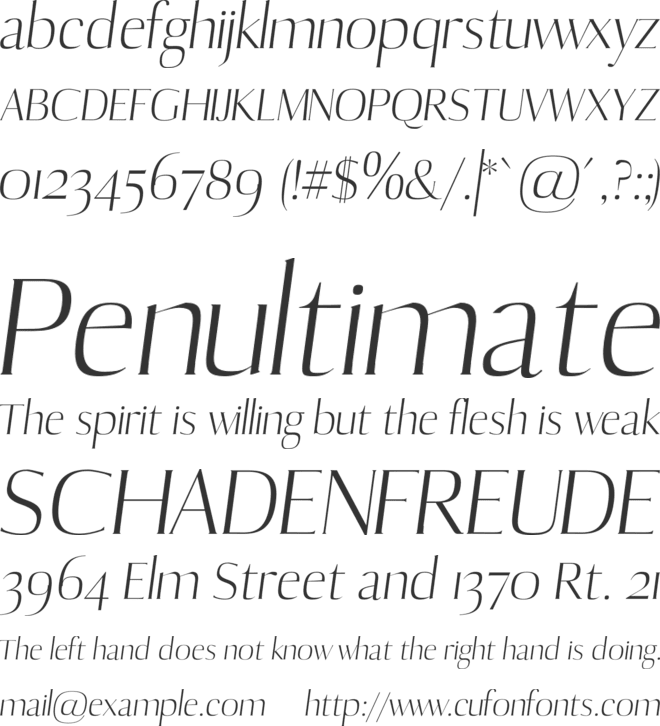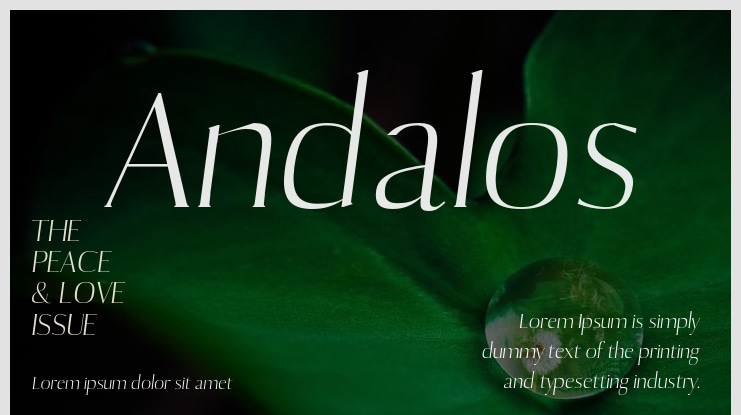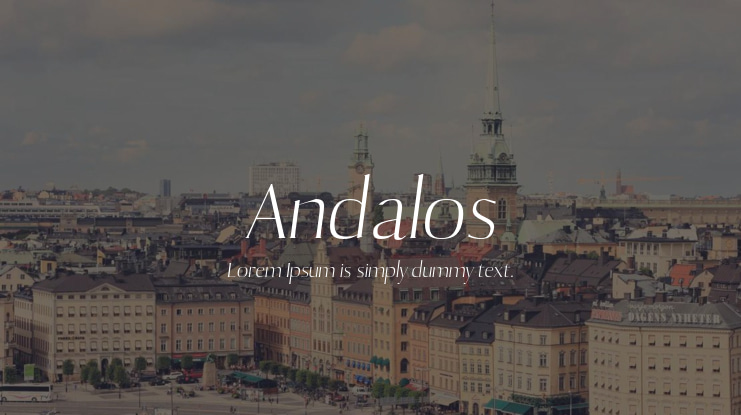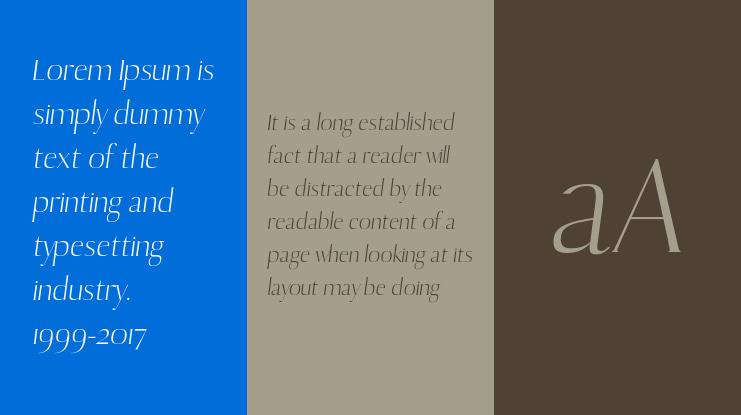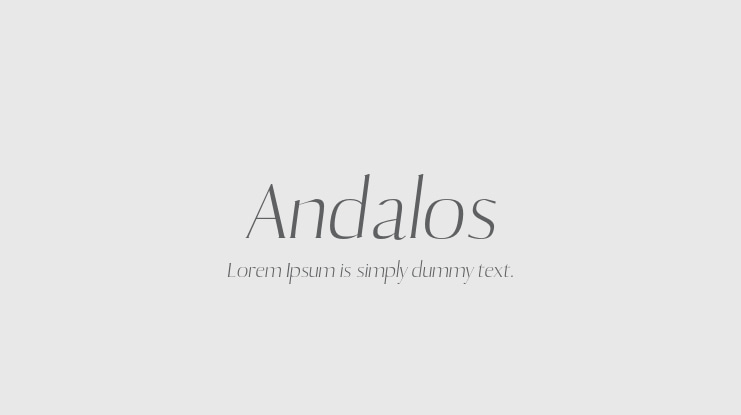
Andalos Font
It’s a wonderful font with a unique, detailed, and handcrafted look.
These fonts look amazing in all caps with wide-set spacing for a classy appearance, or beautiful on their own in both uppercase and lowercase for a timeless touch.
Perfect for creating stunning logos, displays, headers, invitations, save-the-dates, wedding materials, titles, web layouts, branding, and more.